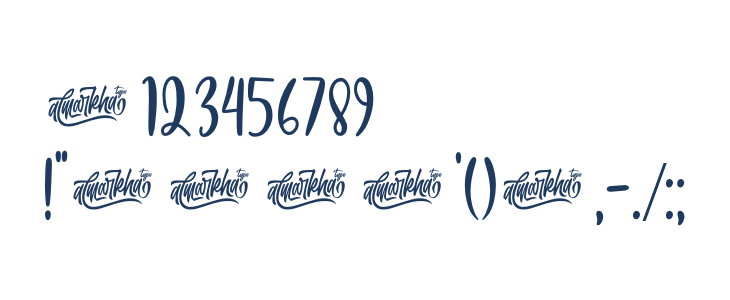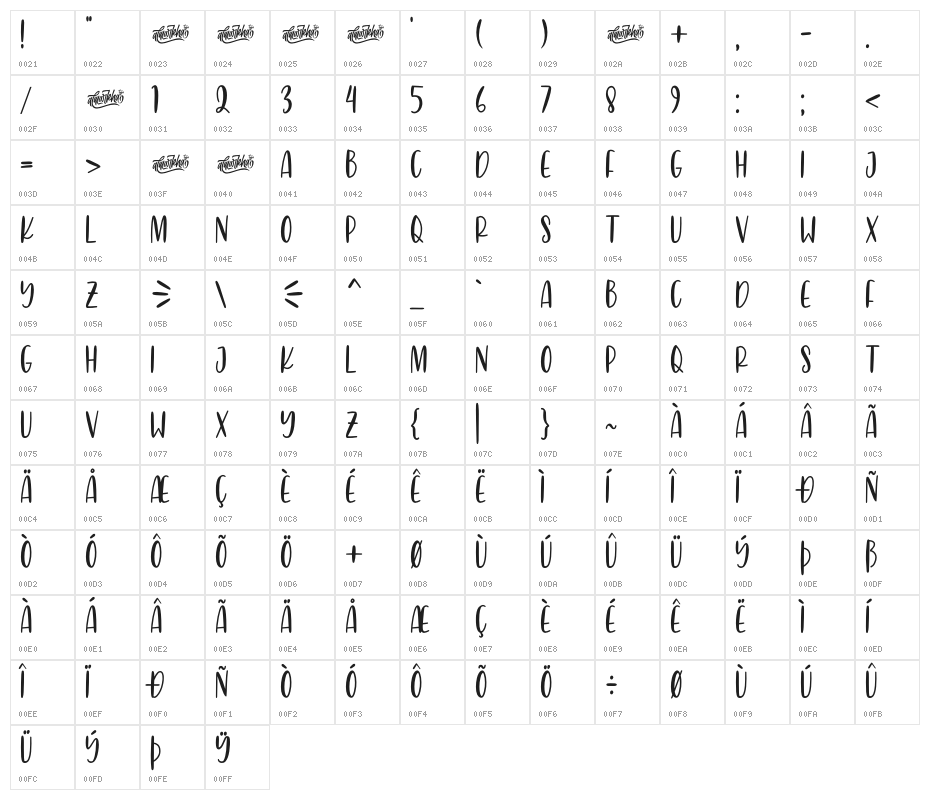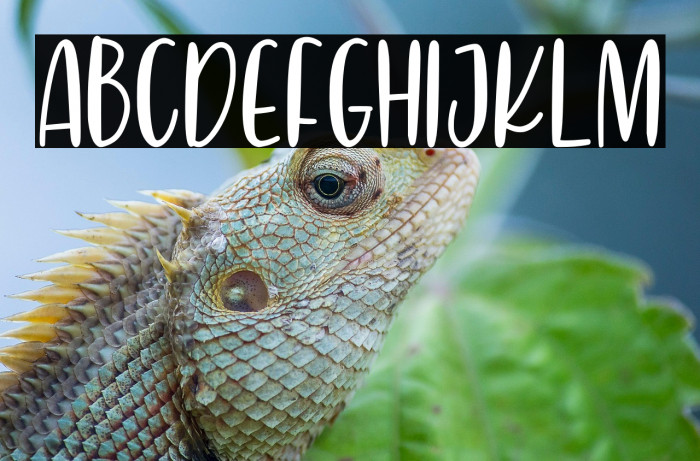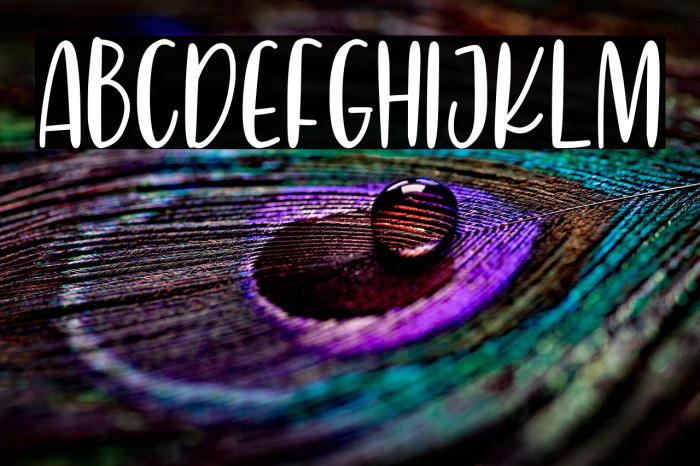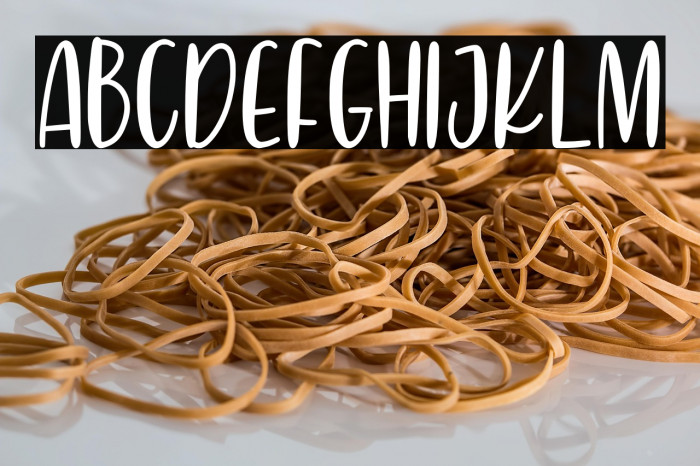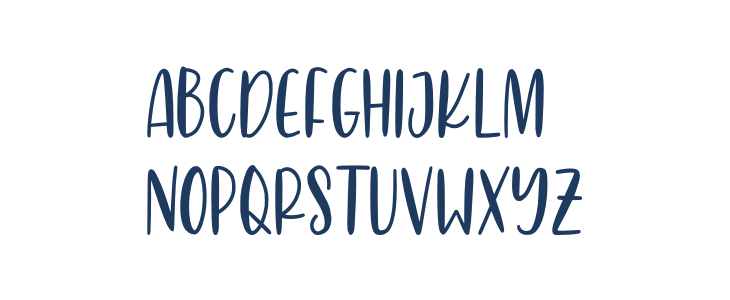
Grumbear Font
Grumbear Description
This font features a playful and energetic style with a handwritten appearance. The letters are bold and slightly condensed, giving them a strong presence while maintaining a casual and friendly vibe. The strokes are smooth and rounded, with a consistent thickness that adds to the font's readability. The numbers and special characters follow the same design principles, ensuring a cohesive look across all elements. This font is ideal for projects that require a personal touch, such as invitations, greeting cards, or branding for creative businesses.
| Overall Style | Playful, Energetic, Casual |
| Proposed Projects | Ideal for invitations, greeting cards, branding for creative businesses, and playful designs. |